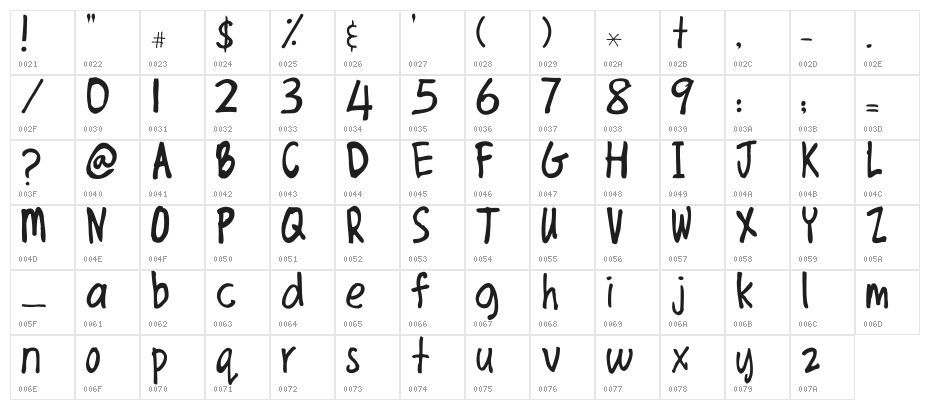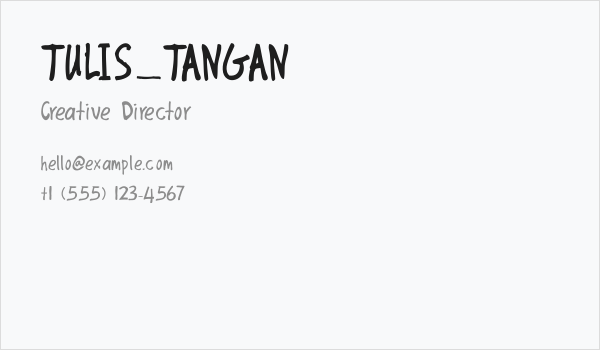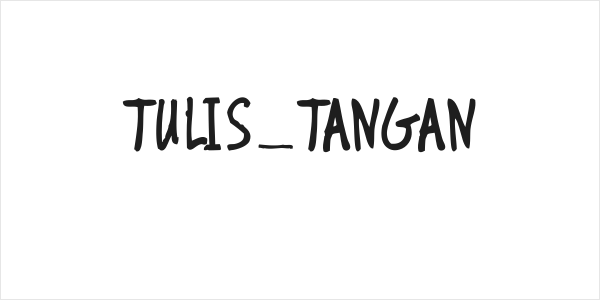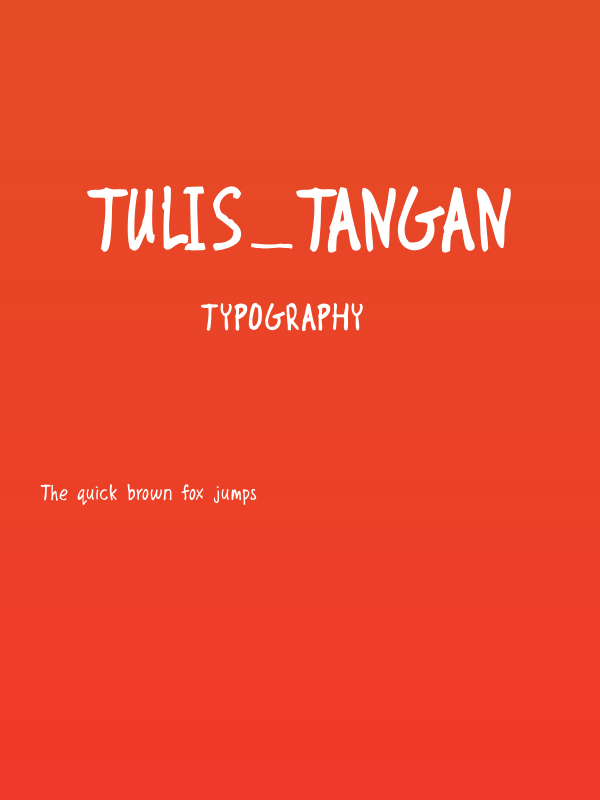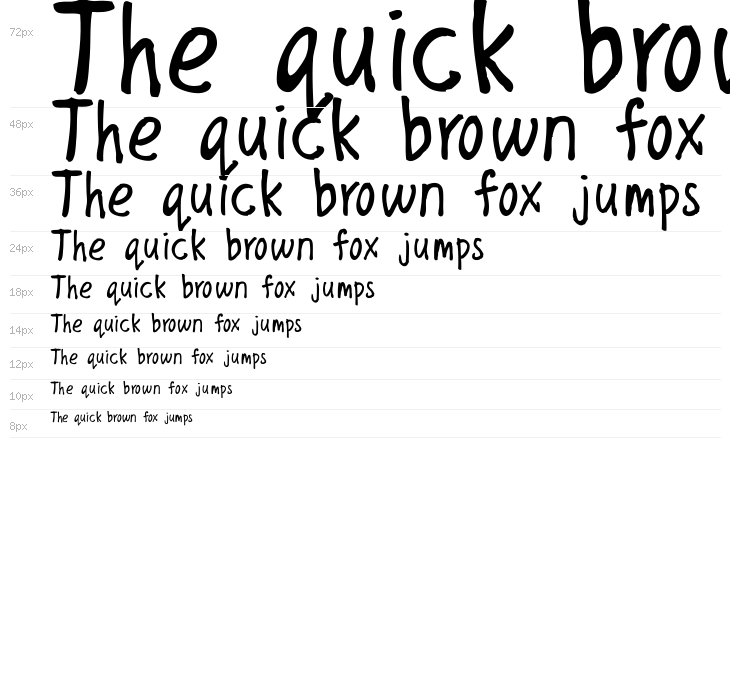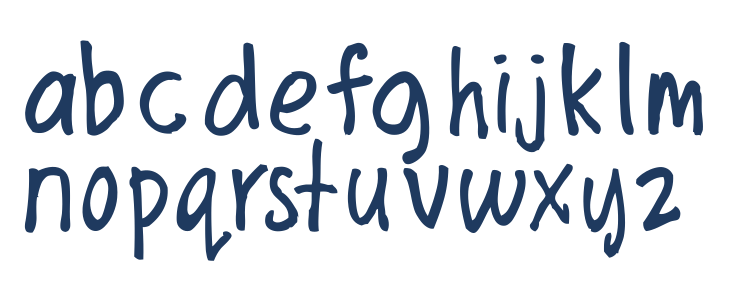
TULIS_TANGAN Font
TULIS_TANGAN Description
This font exudes a playful and casual handwritten style, characterized by its irregular and organic letterforms. The strokes are uneven, giving it a lively and informal appearance, reminiscent of natural handwriting. The uppercase and lowercase letters maintain a consistent flow, while the numbers and special characters complement the overall aesthetic. Its charm lies in the imperfect and spontaneous feel, making it ideal for projects that require a personal touch. The font's unique style is both approachable and versatile, suitable for a variety of creative applications.
| Use Case | Logos, Headlines, Informal Text |
| Proposed Projects | Ideal for greeting cards, personal notes, children's books, and creative branding. |